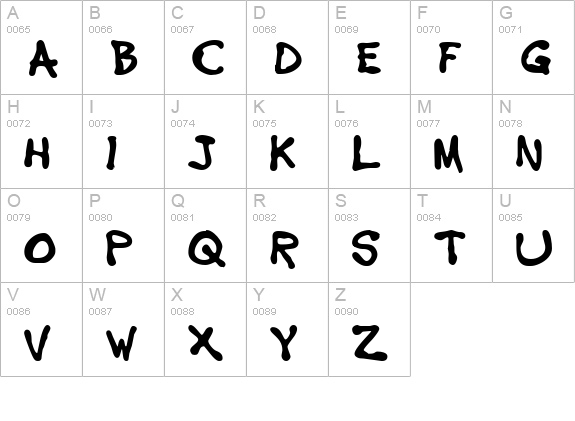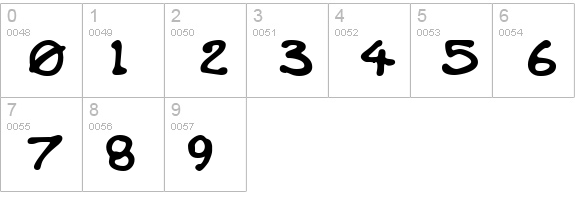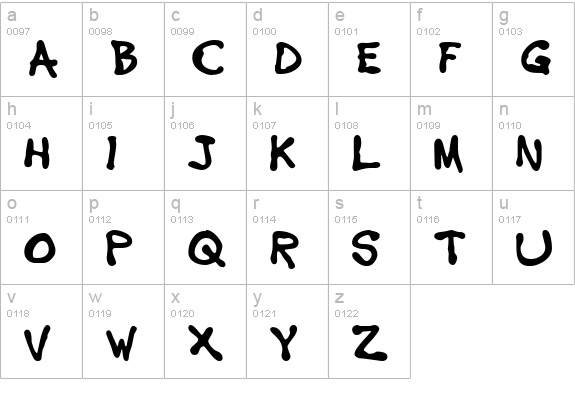
ArcadeAmerica Font Details
ArcadeAmerica font is a playful and retro typeface that brings back the nostalgia of classic arcade games. With its bold and dynamic appearance, this font is perfect for adding a fun and energetic touch to your designs. Whether you're working on a gaming project, poster, website, or any other creative endeavor, ArcadeAmerica font will surely make your text stand out. The best part? ArcadeAmerica font is available for free download at FontsMarket.com. This means you can easily access and use this unique font in your projects without any cost. Don't miss out on the opportunity to enhance your designs with the vibrant and eye-catching ArcadeAmerica font today!